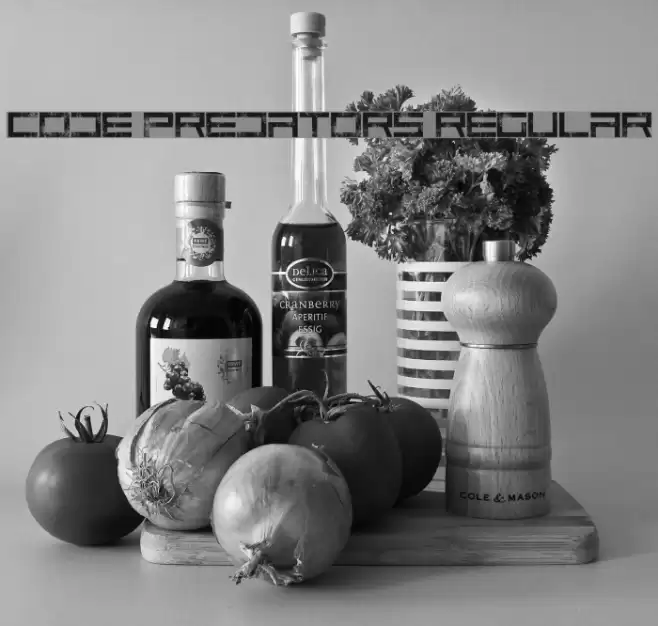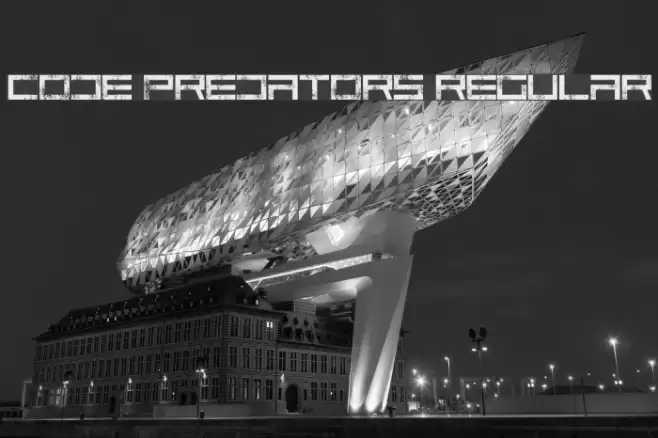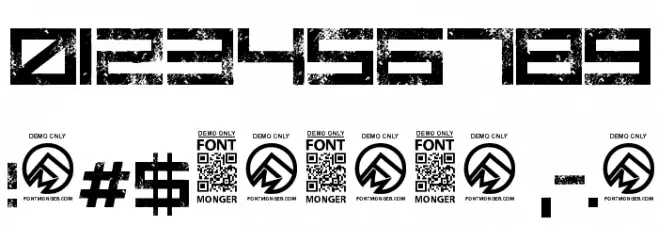
Code Predators Regular Font
Code Predators Regular Description
This font exhibits a bold, distressed style with a digital, futuristic aesthetic. The characters are blocky and geometric, featuring a rough, textured appearance that suggests wear and tear. This design choice gives the font a gritty, industrial feel, making it suitable for projects that require a strong, impactful visual presence. The uppercase and lowercase letters maintain a consistent style, with sharp angles and a uniform height. The numerals and special characters follow the same design principles, ensuring cohesion across all elements.
A bold, distressed font with a digital, futuristic aesthetic from Futuristic fonts.
- Proposed Projects: Ideal for video game titles, movie posters, or any project needing a gritty, industrial look.
- Overall Style: Modern, Industrial